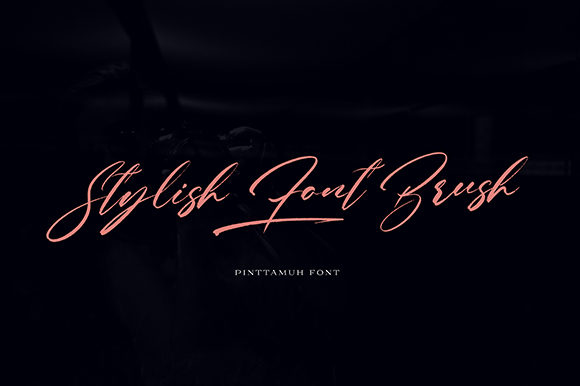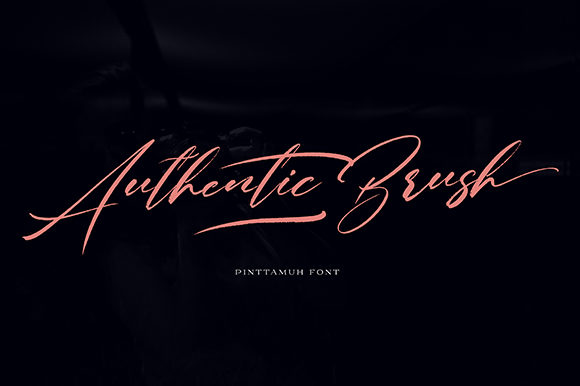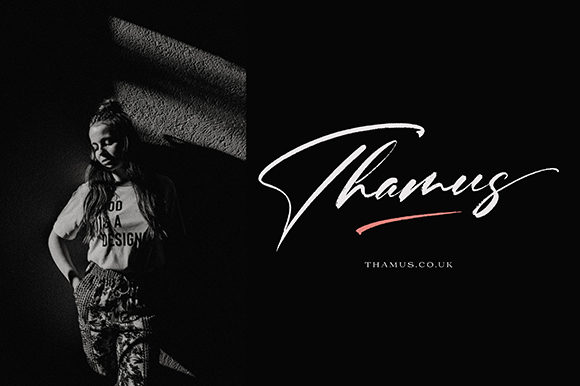
Introduction to Pinttamuh Font
Have you ever found yourself stuck in a creative rut, staring at a blank page, desperately seeking the perfect font to bring your project to life? I know I have. But then, I stumbled upon the Pinttamuh Font, and everything changed. This elegant script font is a game-changer for any designer looking to add a touch of sophistication to their work.
| 👤 Author | Pineungtype & Missinklab |
With its unique style and high-quality design, the Pinttamuh Font is a valuable resource for designers working on a wide range of creative projects. Whether you’re designing a logo, creating a social media graphic, or building a website, this font is sure to make a lasting impression. Plus, its transparent background makes it easy to use on any design, and the best part? It’s available for free download, making it an accessible design resource for designers of all levels.
Key Features of Pinttamuh Font
- High-quality, professional design perfect for creative projects, such as graphic design, web design, and digital art.
- Unique, handcrafted design with a transparent background, allowing for easy customization and placement on any background.
- Perfect for use in digital designs, including social media graphics, logos, and other visual elements.
- Includes a wide range of characters, including uppercase and lowercase letters, numbers, and special characters.
- Designed with a high resolution, making it suitable for use in large-scale designs and prints.
Honest Review: Pinttamuh Font
I recently came across the Pinttamuh Font and decided to give it a try for my creative project. At first glance, I was impressed with the high-quality design and clean lines.
One of the standout features of the Pinttamuh Font is its compatibility with transparent backgrounds, making it an ideal resource for designers looking to add a professional touch to their work.
- ✨ High-quality design with clean lines and minimalistic aesthetic
- ✨ Compatible with transparent backgrounds
- ⚠️ Limited font styles available, which may not be suitable for designers requiring a wide range of options
- ⚠️ May not be as customizable as other design resources
Overall, I’m impressed with the Pinttamuh Font and would recommend it as a valuable design resource for any creative project. While it may have some limitations, its high-quality design and compatibility with transparent backgrounds make it a great choice for designers looking for a professional touch.
Tips for Getting the Most Out of Pinttamuh Font
Use Pinttamuh Font as a design resource for your creative projects, such as logos, business cards, and social media graphics. Experiment with different font sizes, colors, and styles to create a unique look. You can also combine Pinttamuh Font with other design elements to create a visually appealing design.
Pinttamuh Font is suitable for various design projects, including branding, marketing materials, and digital media. It’s also a great font to use for creating a high-quality design resource, such as a logo or business card. You can download Pinttamuh Font for free and use it in your design projects.